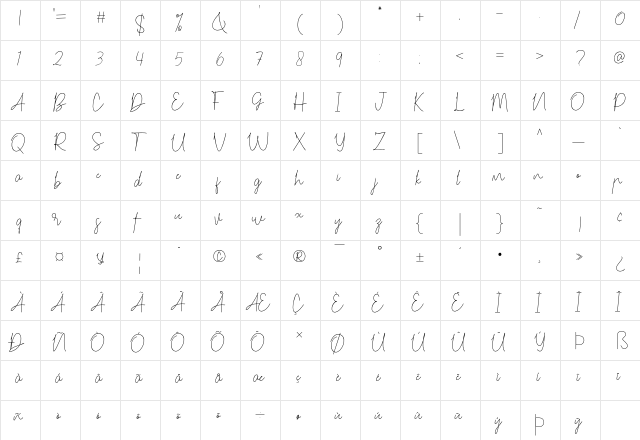
Carmelia Regular
| Foundry | Stringlabs |
| Designer | Stringlabs |
Design Context for Carmelia Typeface
Carmelia is a composed and adaptable typeface that performs quietly and consistently across a wide range of design contexts.